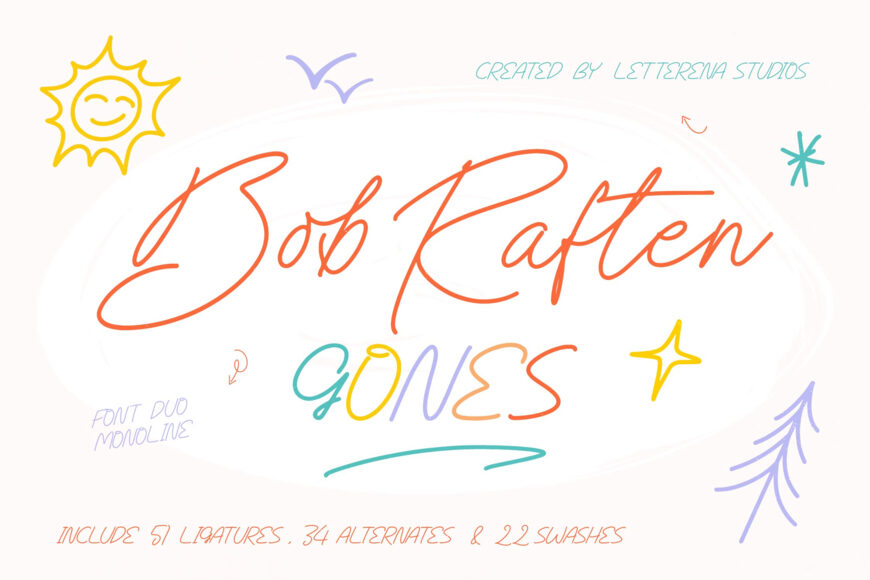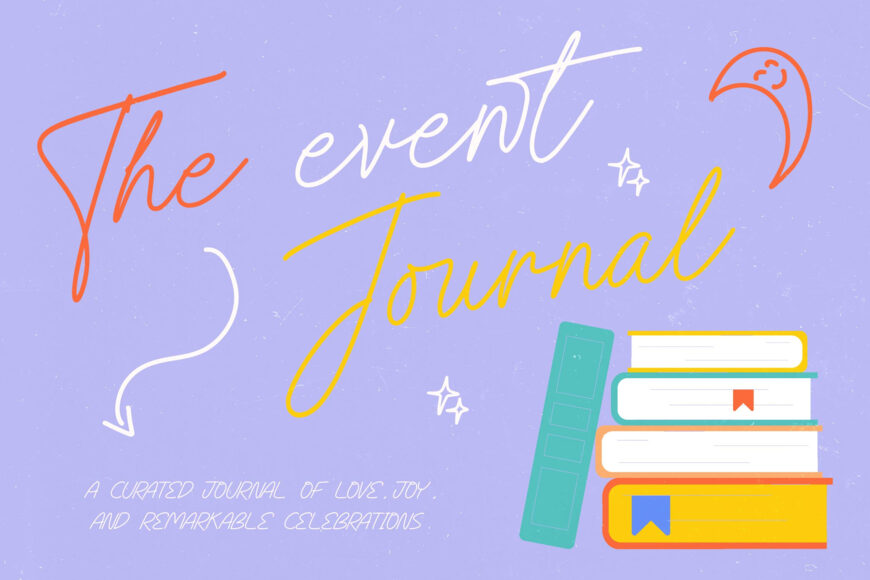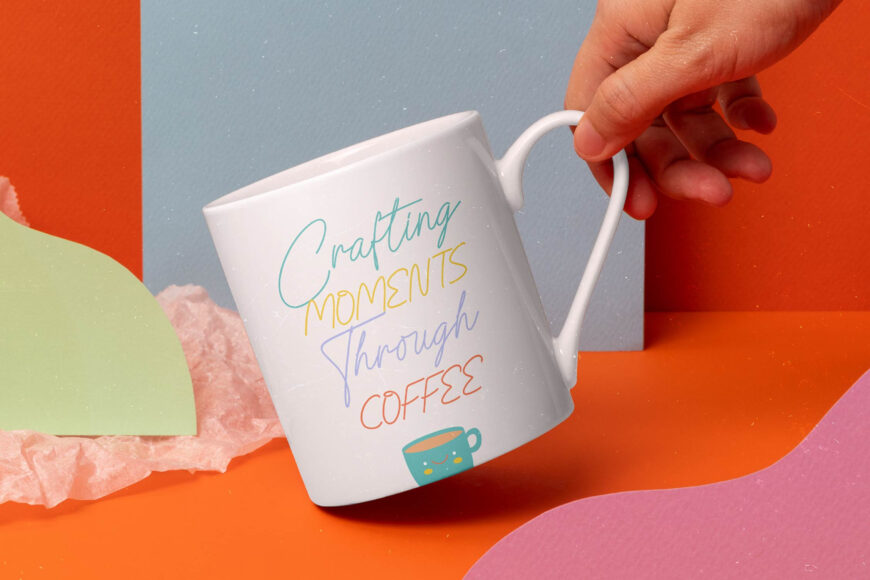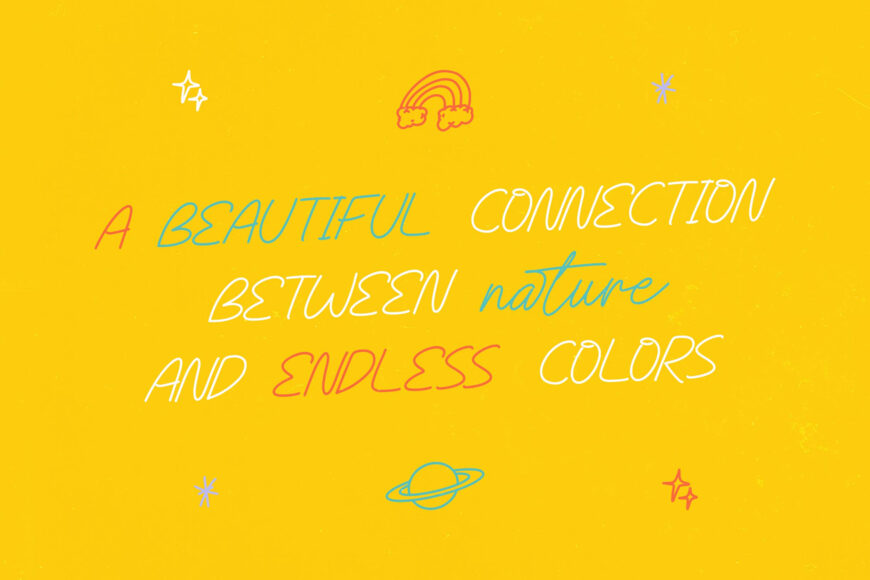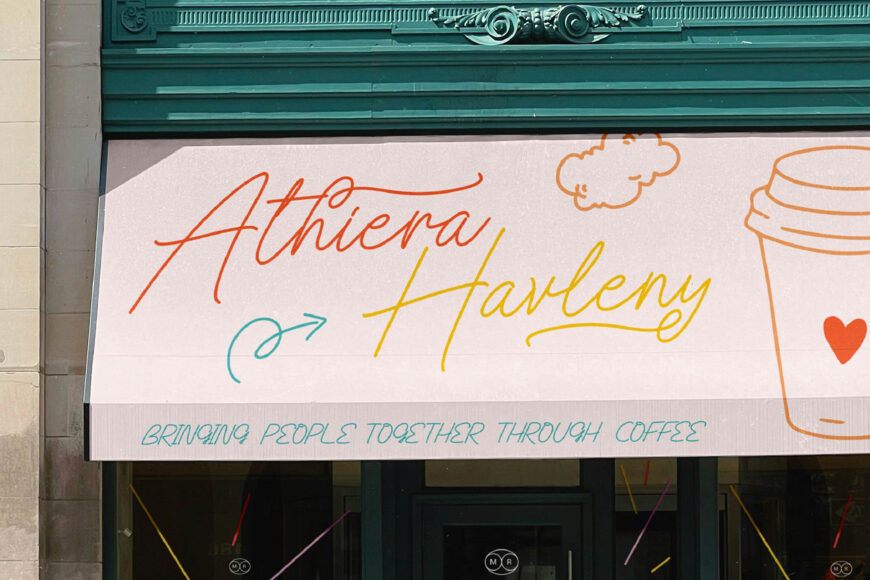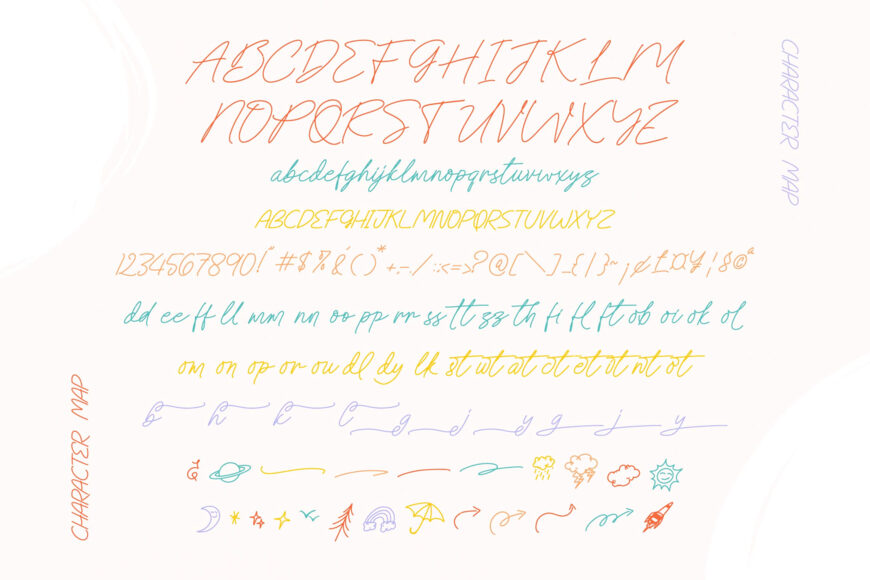
Elevate your creative work with Bob Raften Gones, a monoline font duo inspired by authentic handwriting. Its smooth, continuous strokes create an organic look that feels both playful and refined, while its ligatures and alternate characters add a personalized, handcrafted touch to every design.
With extensive multilingual support, this versatile typeface works effortlessly across international projects, helping brands maintain a consistent visual identity in any language.